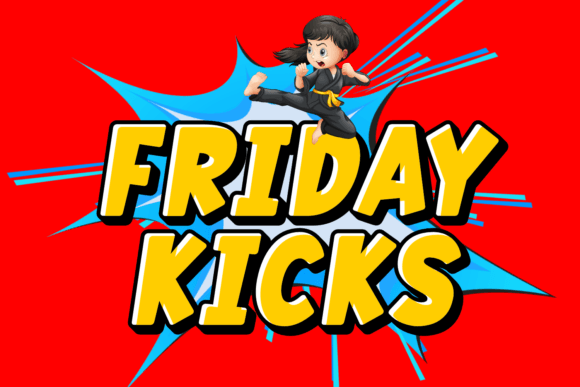
Unleash Your Creativity with Friday Kicks Font
It’s that moment when the ideas start flowing, and your design project comes to life. You’re staring at a blank canvas, and your mind is racing with possibilities. You need a font that can match the energy and excitement of your vision. That’s where the Friday Kicks Font comes in – a thick and dynamic display font that’s sure to make your design stand out.
Whether you’re working on a poster, book cover, website, or app, Friday Kicks Font is the perfect choice for projects that require bold and captivating typography. With its unique style, this font will add a touch of personality to your design, making it truly unforgettable. As a designer, you know how valuable it is to have the right tools at your disposal – and Friday Kicks Font is a game-changer.
Friday Kicks Font Key Features
- Font Family: Friday Kicks is a sans-serif font family designed specifically for digital use.
- Unique Characteristics: Friday Kicks features a modern and clean design with a unique ‘kicks’ style, making it perfect for digital products, branding, and advertising.
Designer Review: Friday Kicks Font
Overall, I think Friday Kicks Font is a solid addition to any designer’s toolkit. Here are some of its standout features:
- ✨ It has a unique, quirky feel that’s perfect for creative projects or brands that want to stand out from the crowd.
- ✨ The font is highly customizable, with a range of styles and weights to choose from.
- ✨ It’s highly legible, even at smaller font sizes, making it a great choice for body text.
- ⚠️ The font may not be the best choice for formal or professional projects, as its quirky feel may come across as unprofessional.
- ⚠️ Some users may find the font’s irregularities to be distracting or difficult to read at times.
- ⚠️ The font is not as widely supported as some other popular fonts, which may cause issues in certain design applications or on certain devices.
Overall, I think Friday Kicks Font is a great choice for designers who want to add some personality to their projects. While it may not be the best fit for every project, it’s definitely worth considering for the right type of design.
Tips: Use “Friday Kicks Font” to add a touch of fun and playfulness to your designs. Experiment with different font sizes and colors to create visual interest.
Tips: Use “Friday Kicks Font” to create eye-catching headlines and titles. Combine it with other fonts to create a unique and stylish design.
Tips: Use “Friday Kicks Font” to add a personal touch to your presentations and documents. Use it to highlight important information or create a memorable title.
“Friday Kicks Font” is perfect for:
- Creating playful and fun designs
- Adding a touch of personality to presentations and documents
- Highlighting important information or creating a memorable title